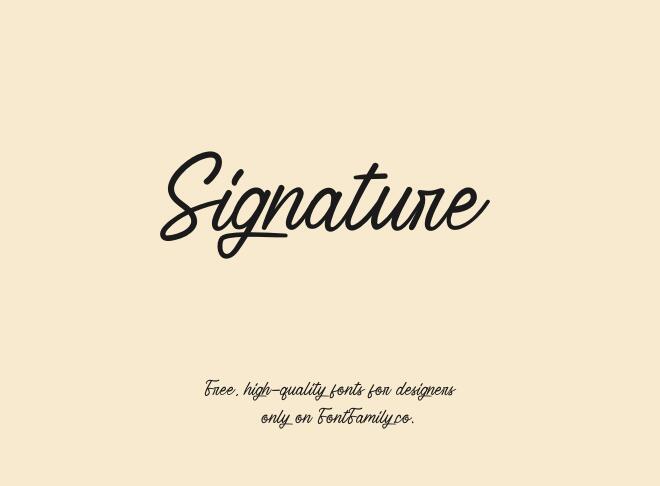
Signature Font
The Signature Font is a modern and elegant handwritten script font designed by Tom Chalky. Its sleek, flowing letters are perfect for creating signature style logos, personal branding, wedding invitations, quotes, and social media posts. The Signature Font is highly versatile and works exceptionally well for various design projects. Its minimalistic design and modern aesthetic make it a popular choice for designers who seek to add a personal and sophisticated touch to their work. Compared to other fonts, Signature Font stands out with its unique style and elegance, making it an excellent addition to any designer's toolkit. Its free personal use license allows designers to explore its potential without any constraints, making it an ideal choice for both beginner and seasoned designers. Its beauty lies in its simplicity and elegance, which effortlessly adds a touch of sophistication to any design.